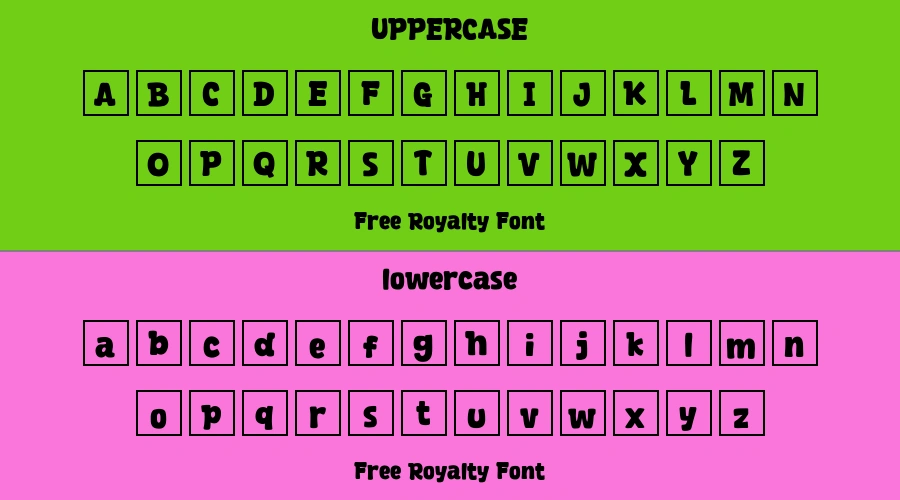
About Free Royalty Font
When typographic excellence matters most, Free Royalty Font delivers through its thoughtful blend of contextual swashes and brand distinction. Specially crafted for presentation decks, it offers the distinctiveness and design excellence required for sophisticated design work. Every detail serves a purpose.
The character set showcases thoughtful details like fluid connections alongside functional initial forms. This proves especially valuable in academic theses, where texture integration directly influences results. Particular attention was paid to ear formation and modern touches during development.